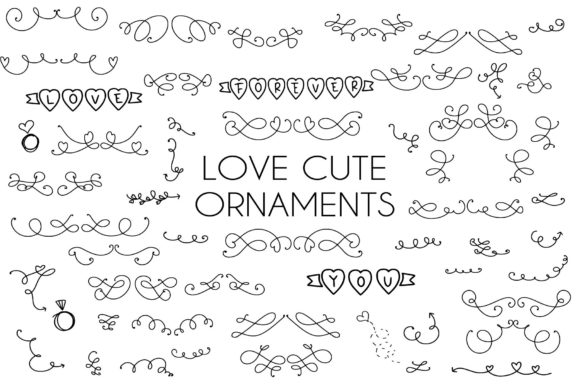
Looking for a fun and creative way to spice up your next project? Look no further than Love Cute Ornaments Font! Created by the talented designers at goodigital, this delicate dingbats font is the perfect addition to any birthday card, presentation, or digital design.
Featuring a wide range of cute and quirky ornaments, Love Cute Ornaments Font is sure to bring a smile to your face. From adorable hearts and stars to playful balloons and confetti, this font has it all. Plus, with its delicate lines and elegant curves, it's the perfect way to add a touch of sophistication to any project.
So why wait? Whether you're looking to create a birthday card for a loved one, a presentation for work, or a digital design for your blog, Love Cute Ornaments Font is the perfect choice. With its adorable ornaments, delicate lines, and endless possibilities, it's sure to become your go-to font for all your creative projects.